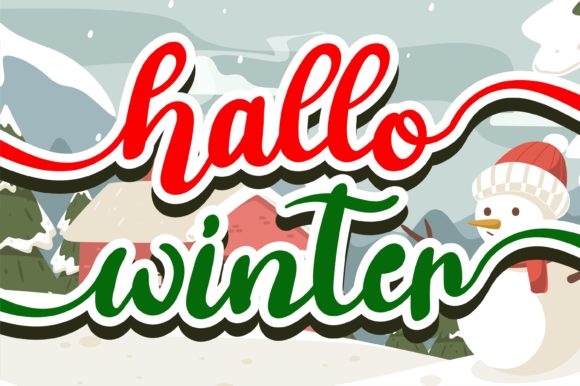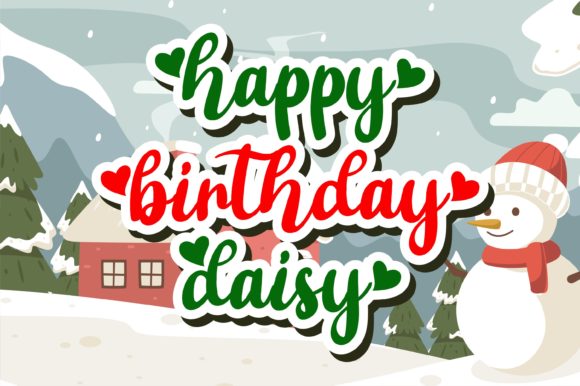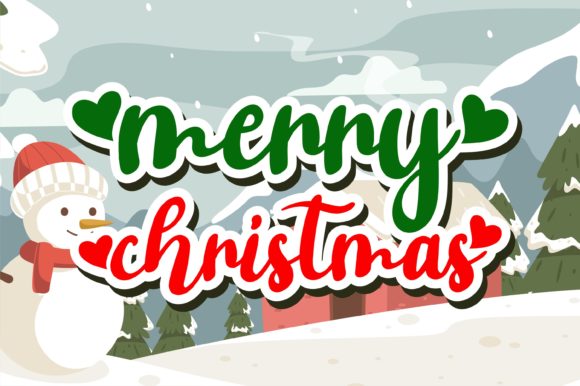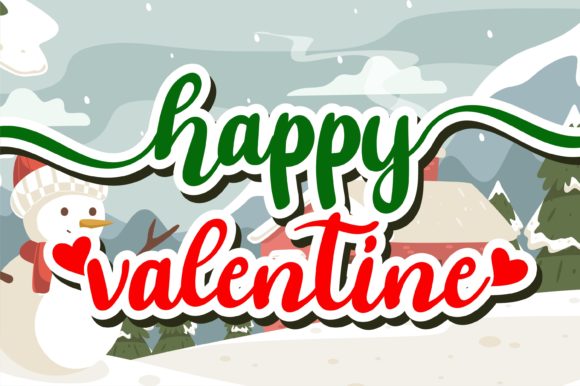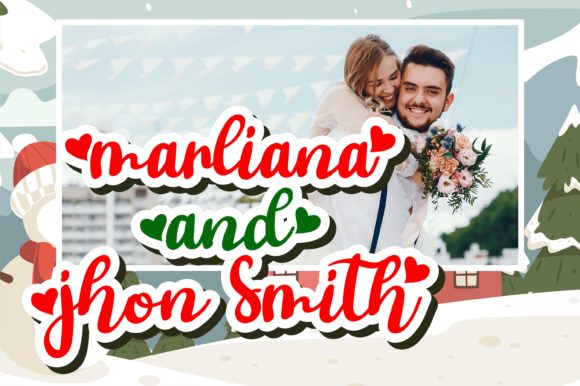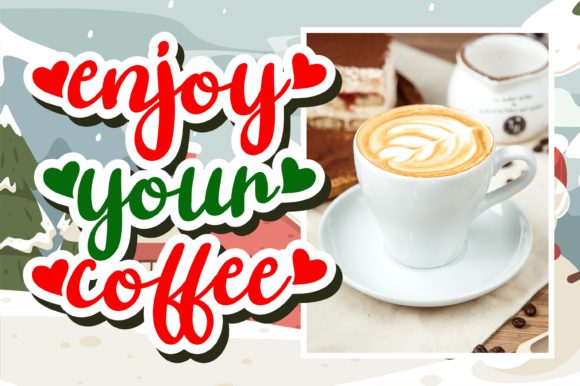
Introduction to Shasha Christmas Font
As you sit at your desk, surrounded by scraps of paper, glue, and glitter, the excitement builds up as you plan your holiday project. You’re on the hunt for the perfect font to add that extra touch of elegance and whimsy. And then, it hits you – the perfect font to make your creative vision come alive: Shasha Christmas Font.
This beautiful, handwritten font is a designer’s dream come true. Its delicate and rounded letters transport you to a world of festive charm, making it an ideal choice for holiday-themed greeting cards, gift tags, and any other project that requires a romantic touch. With its PUA encoding, accessing all the glyphs and swashes is a breeze, allowing you to get creative with your design.
Key Features of Shasha Christmas Font
- High-quality design: The Shasha Christmas Font is designed to be visually appealing, making it perfect for creative projects that require a touch of elegance.
- Unique, hand-drawn design: The font’s unique, hand-drawn style sets it apart from other fonts, making it perfect for designers looking to add a personal touch to their projects.
- Perfect for the holiday season: As a Christmas-themed font, the Shasha Christmas Font is ideal for designs related to the holiday season, such as greeting cards, posters, and more.
Honest Review: Shasha Christmas Font
I recently had the chance to work with the Shasha Christmas Font, and I must say it’s a solid addition to any designer’s toolkit. This font is perfect for a creative project that requires a festive and playful vibe.
- ✨ High-quality design: The font is well-crafted and has a professional look, making it suitable for a variety of design applications.
- ⚠️ Limited font styles: While the font itself is high-quality, the selection of styles is relatively limited compared to other fonts on the market.
Overall, I’m impressed with the Shasha Christmas Font. It’s a great resource for designers working on a creative project, especially those with a Christmas or winter theme. While it may have some limitations, it’s a solid choice for anyone looking for a high-quality font at an affordable price.
The Shasha Christmas Font is perfect for holiday-themed designs, such as Christmas cards, gift tags, and party invitations. It’s also a great choice for creative projects, like digital art, print designs, and even web graphics.